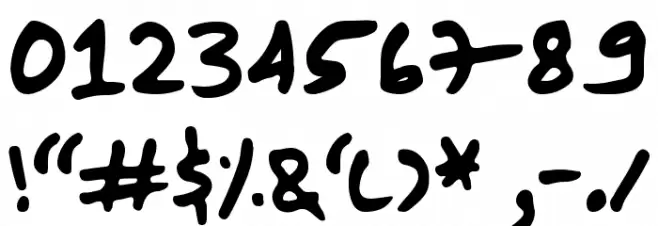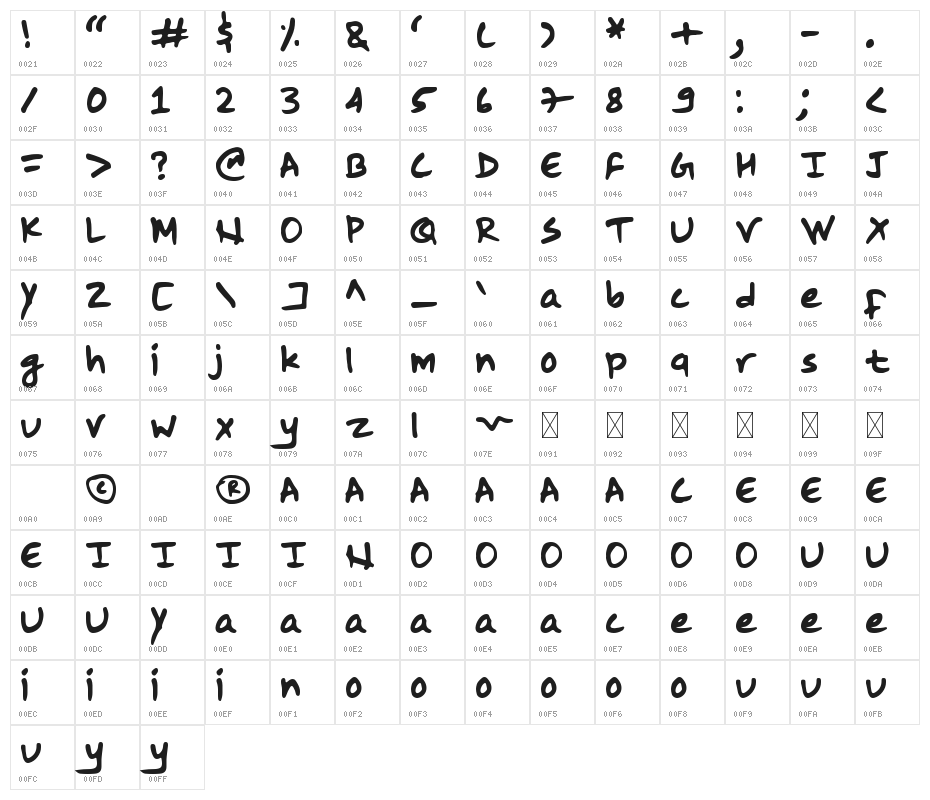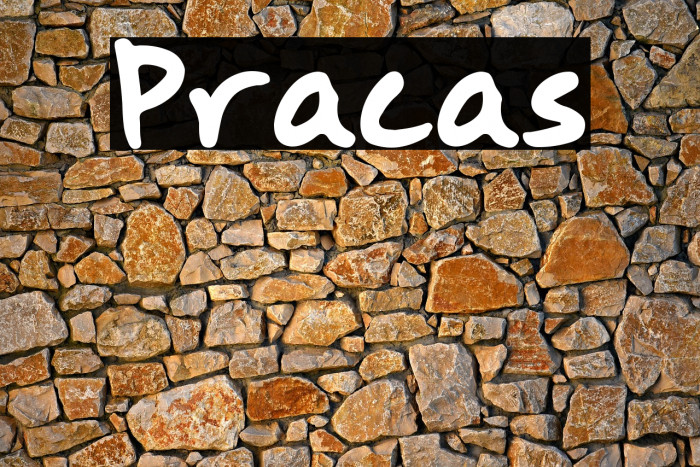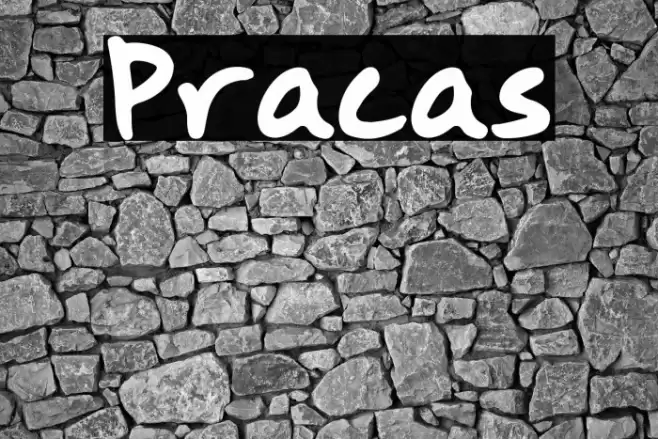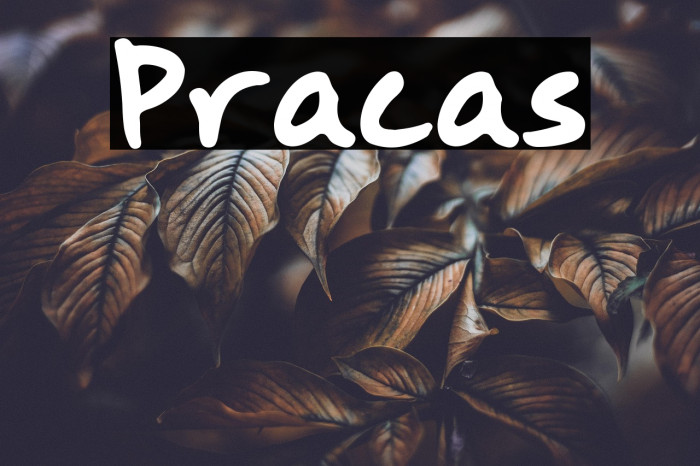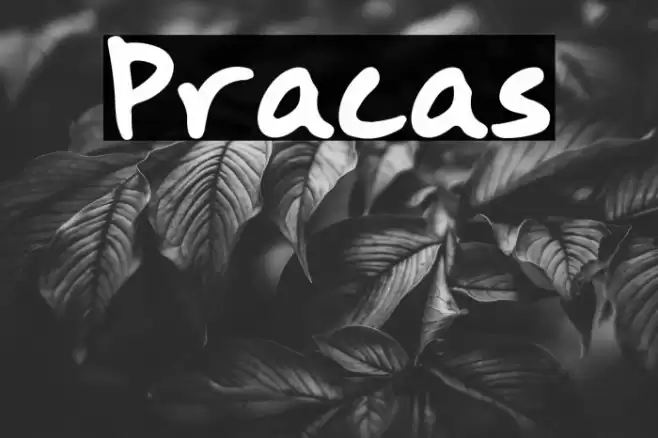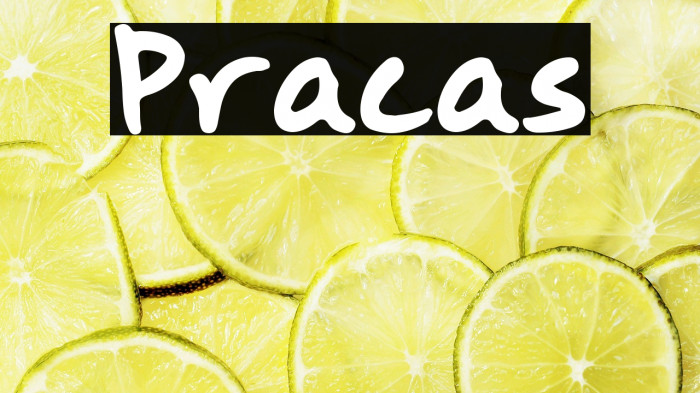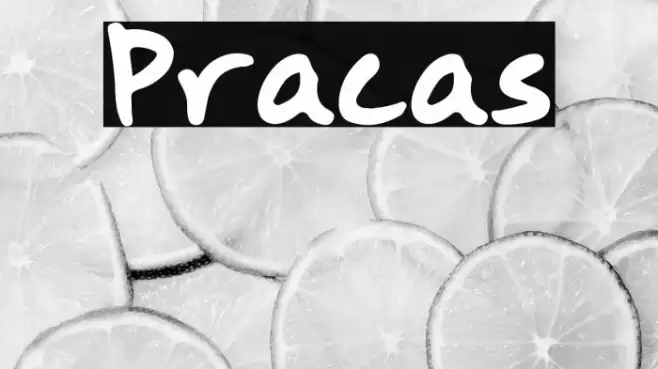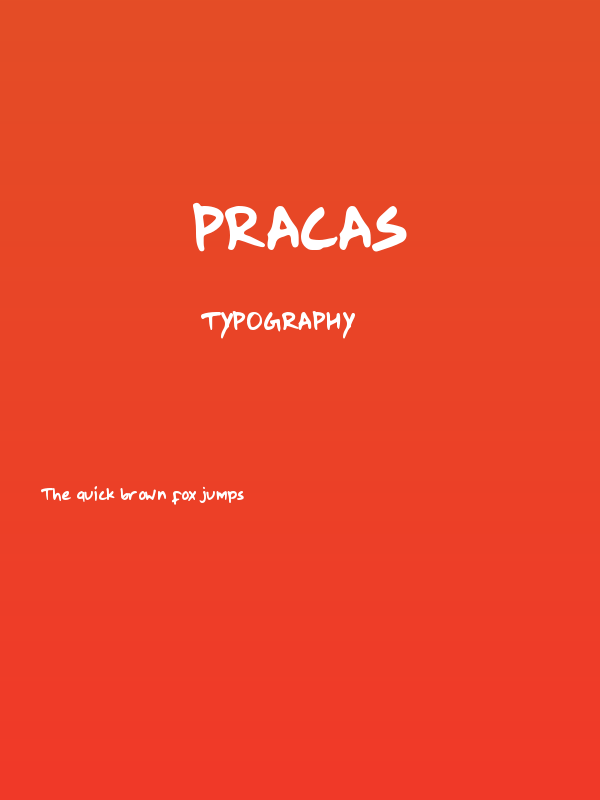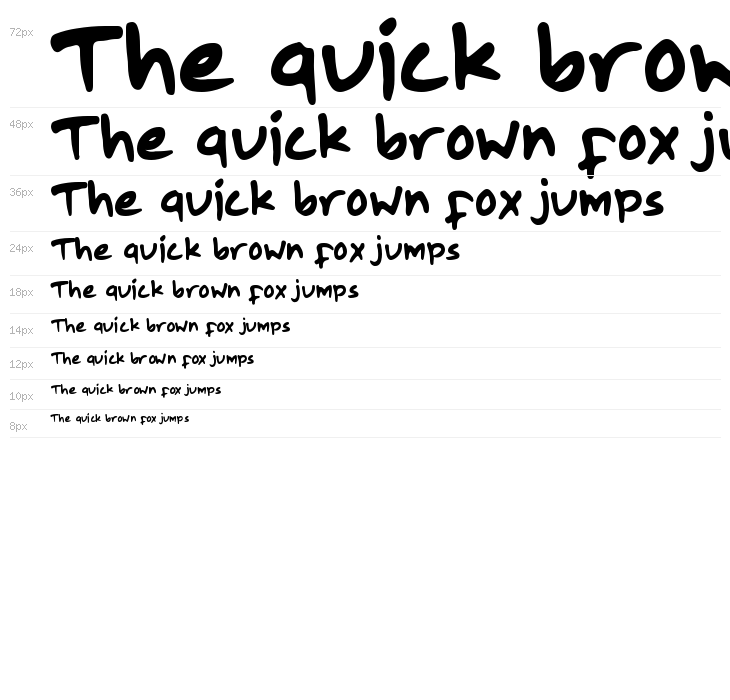
Pracas Font
Pracas Description
This font features a playful and casual handwritten style, characterized by its bold and rounded letterforms. The strokes are thick and consistent, giving it a strong presence on the page. The characters are slightly slanted, adding to the informal and friendly appearance. The spacing between the letters is relatively tight, which enhances the cohesive look of the text. The font includes a full set of uppercase and lowercase letters, numbers, and a variety of special characters, making it versatile for various uses. Its overall style is reminiscent of a marker or brush pen, providing a personal and approachable feel.
| Proposed Projects | Ideal for greeting cards, children's books, casual branding, and social media graphics. |